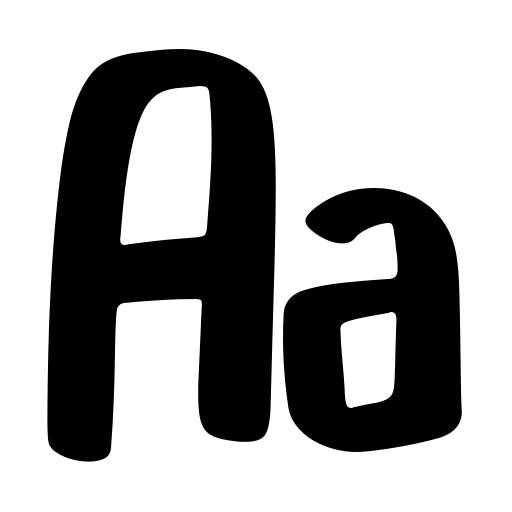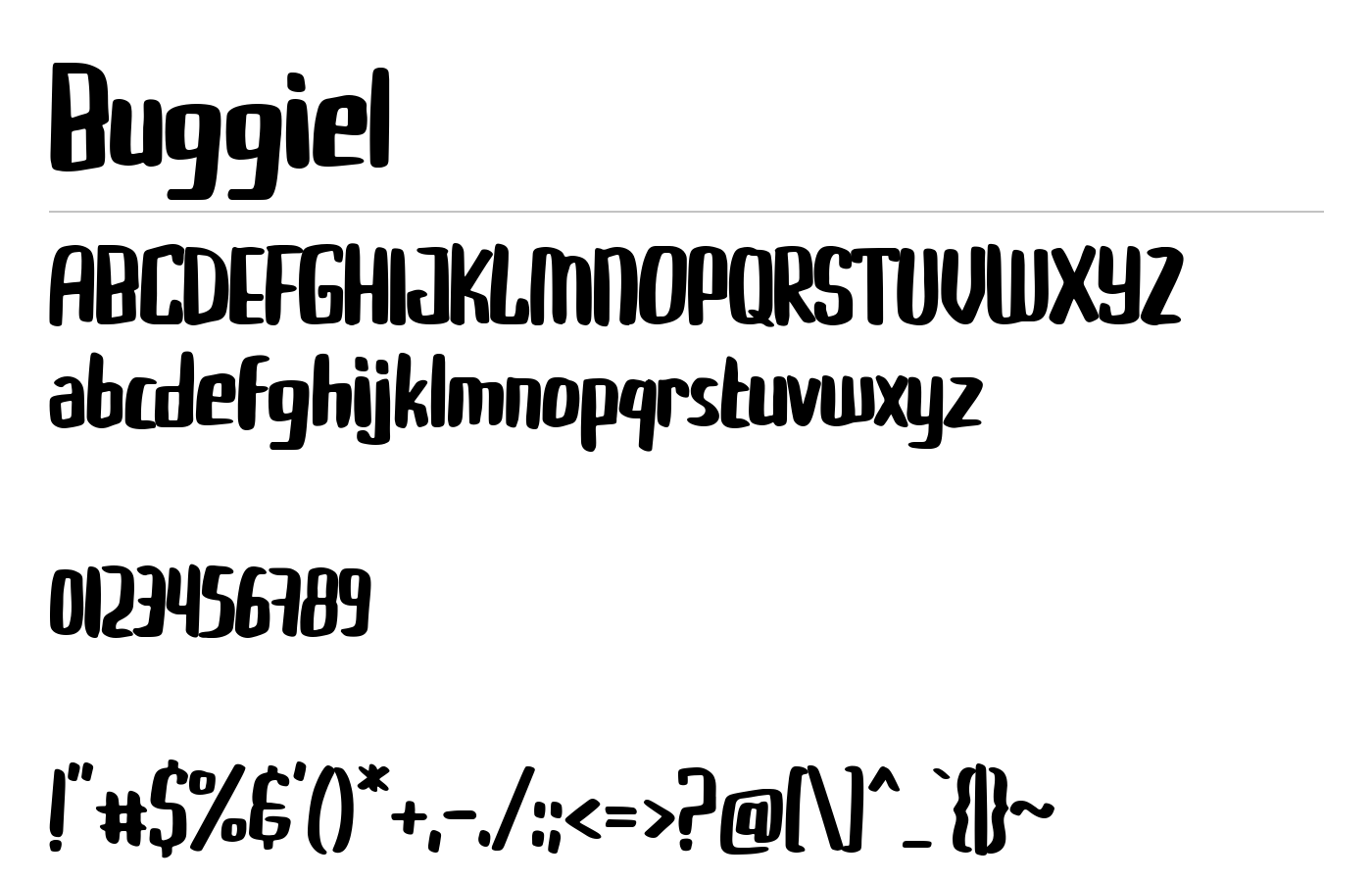
Buggiel is a bold, condensed sans serif font with a playful, hand-drawn feel that adds character and uniqueness to any design. Its tall, slightly irregular letterforms with rounded edges create a friendly and energetic vibe, making it ideal for eye-catching headlines, logos, and creative branding that wants to stand out with a casual yet confident personality. This font works well in contexts where a fun, approachable look is desired without sacrificing readability.
About Buggiel Font